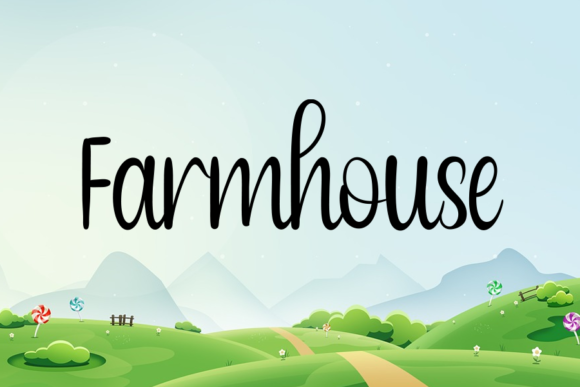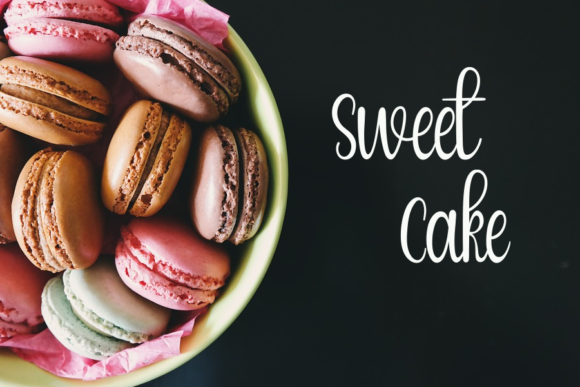
Sambalado Font
db-ku.com - Script & Handwritten -- Sambalado is a lovely, elegant and unique script font. Add this adaptable looking font to each of your love letters, wedding invitations or favorite design ideas, and you will be astounded by the outcome.